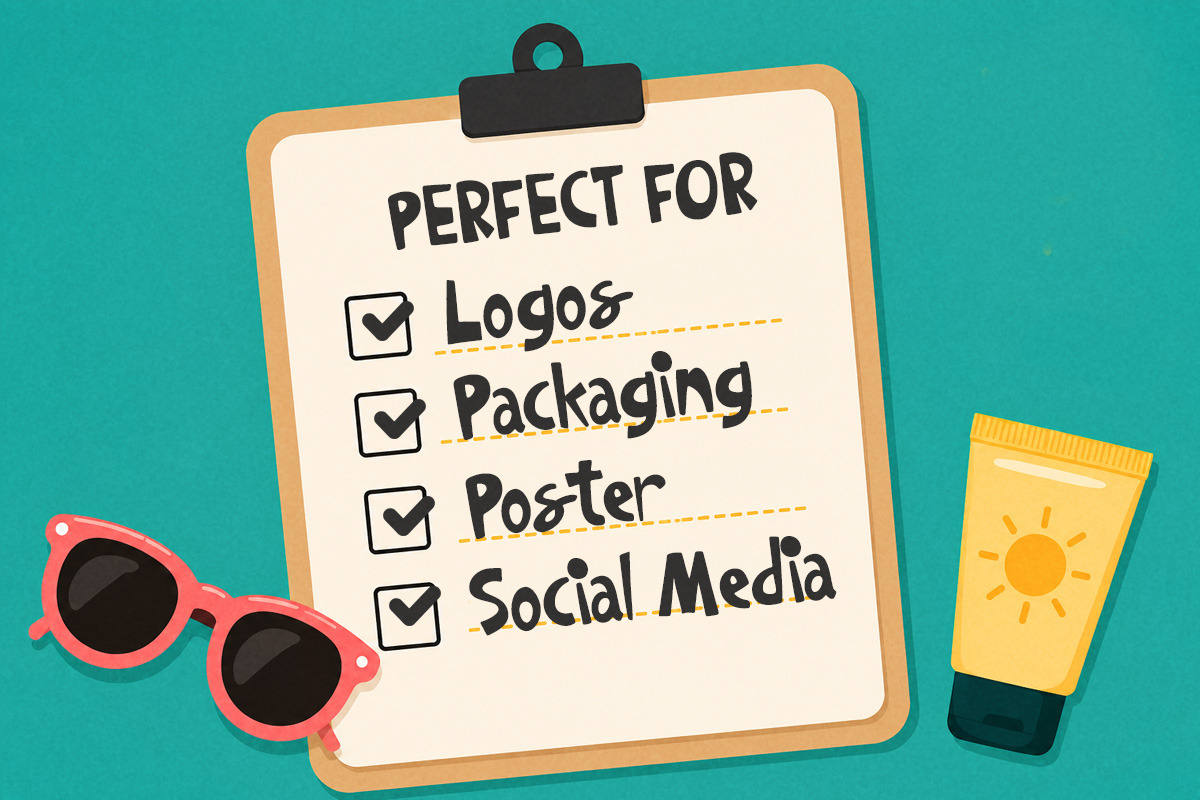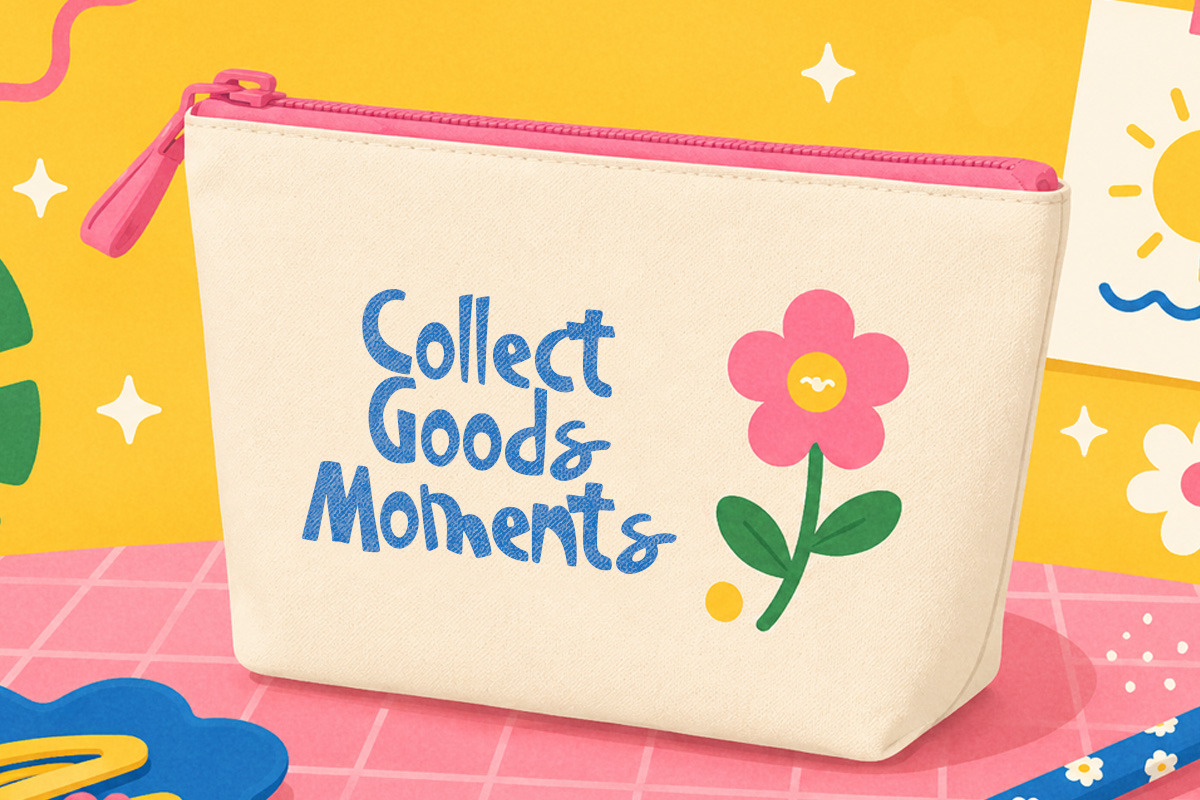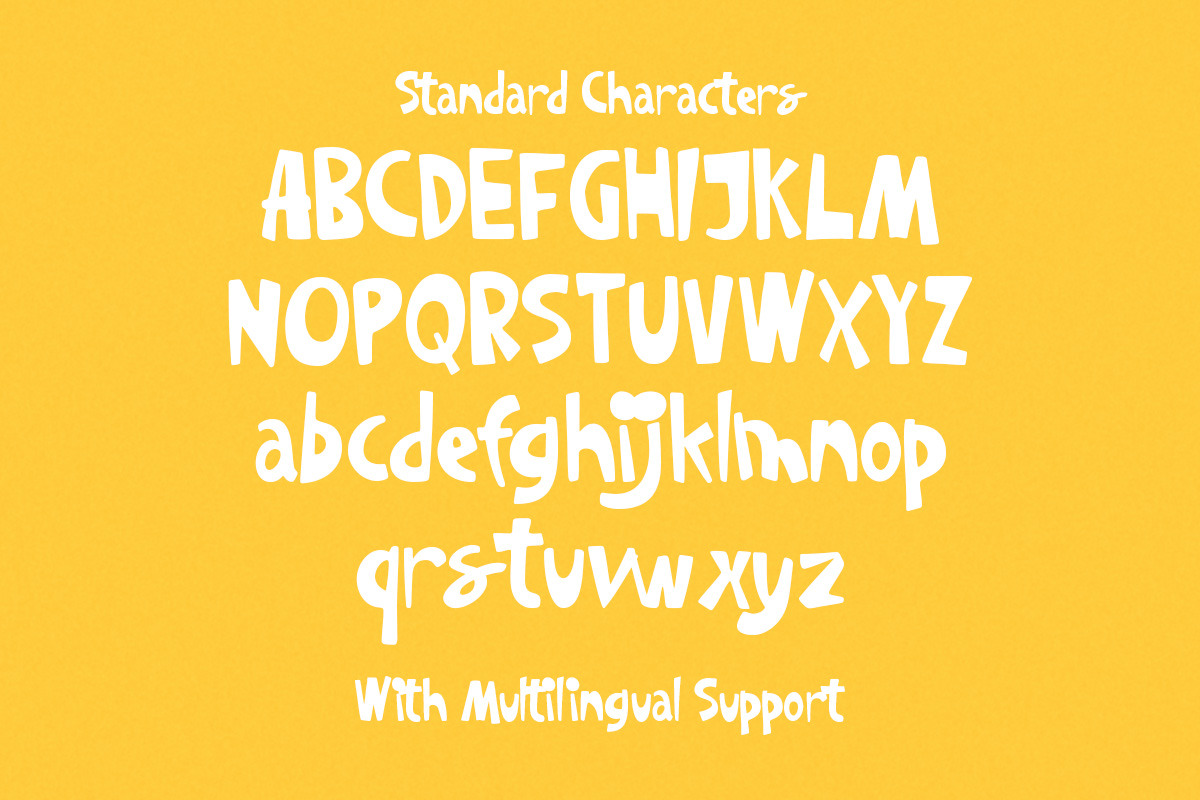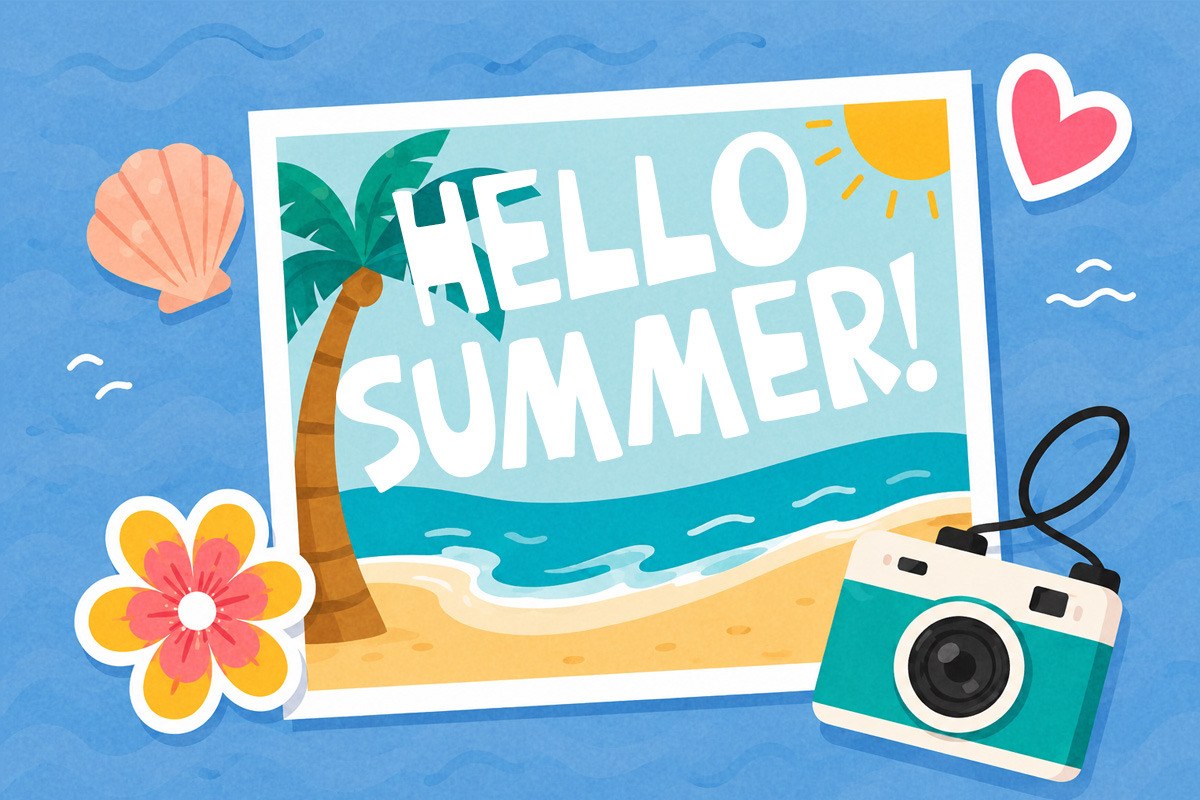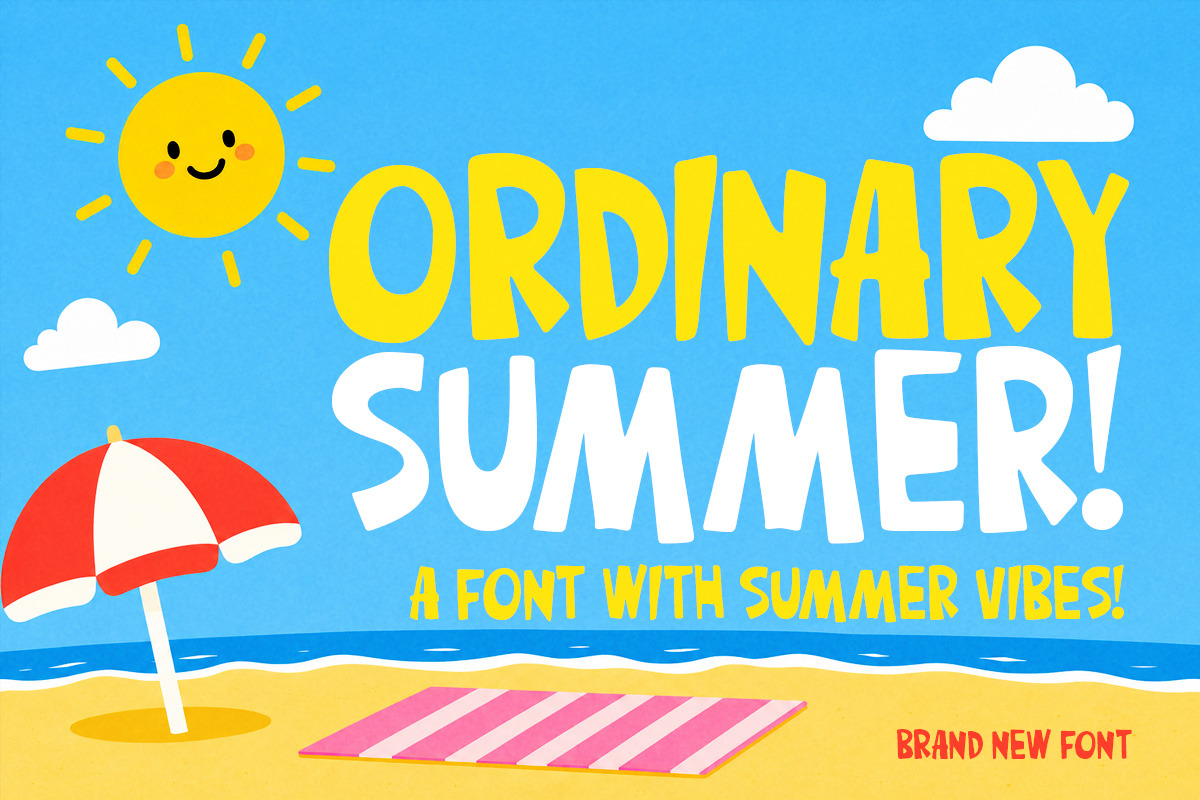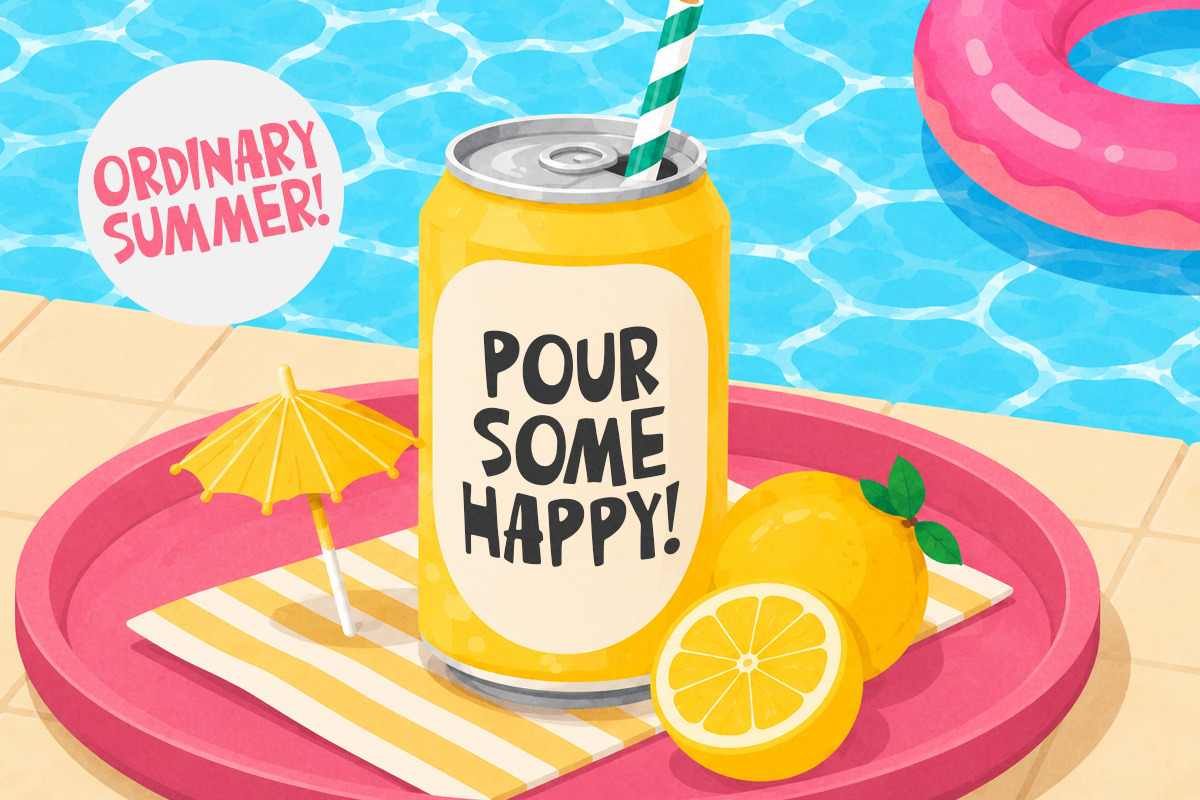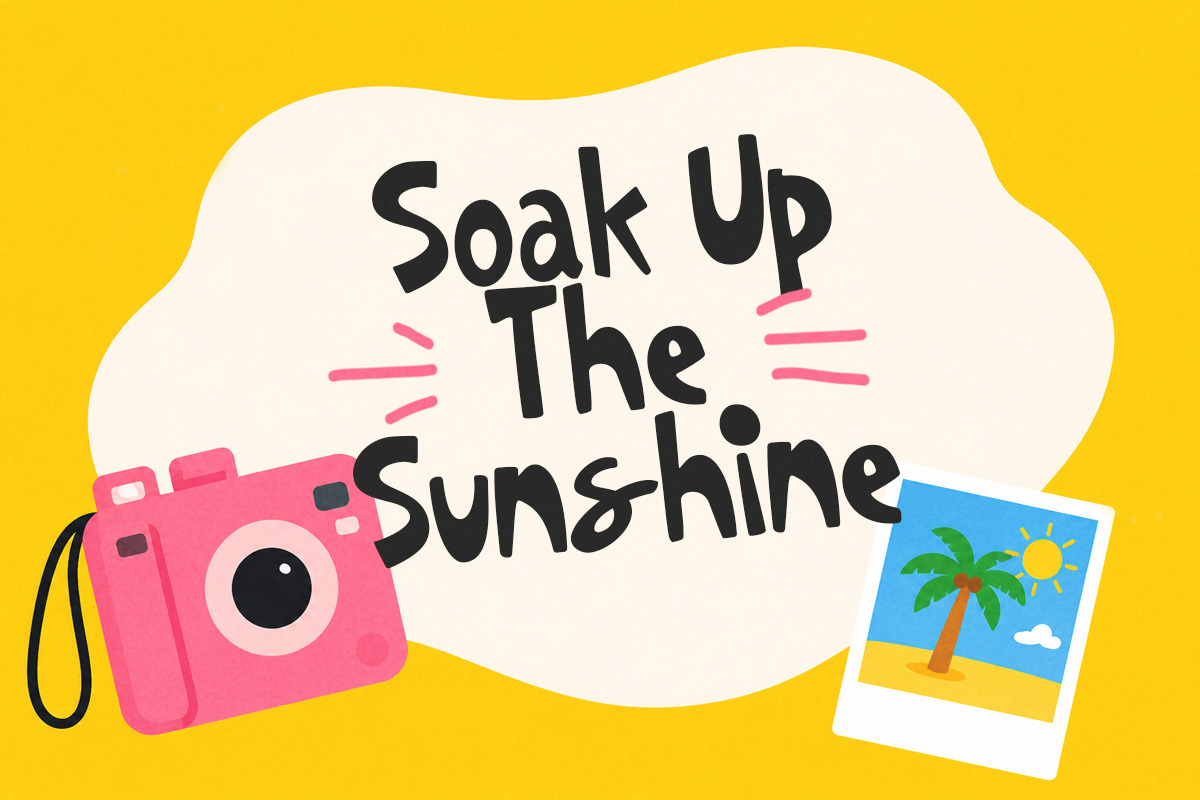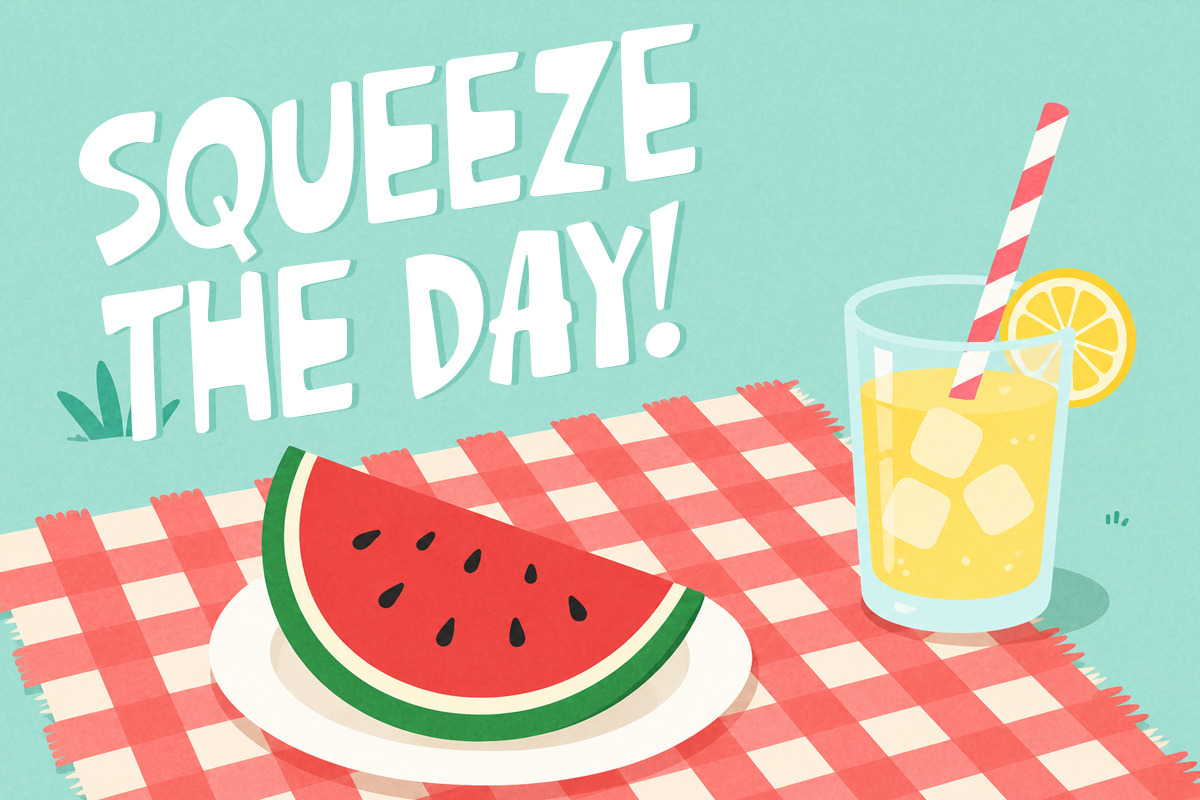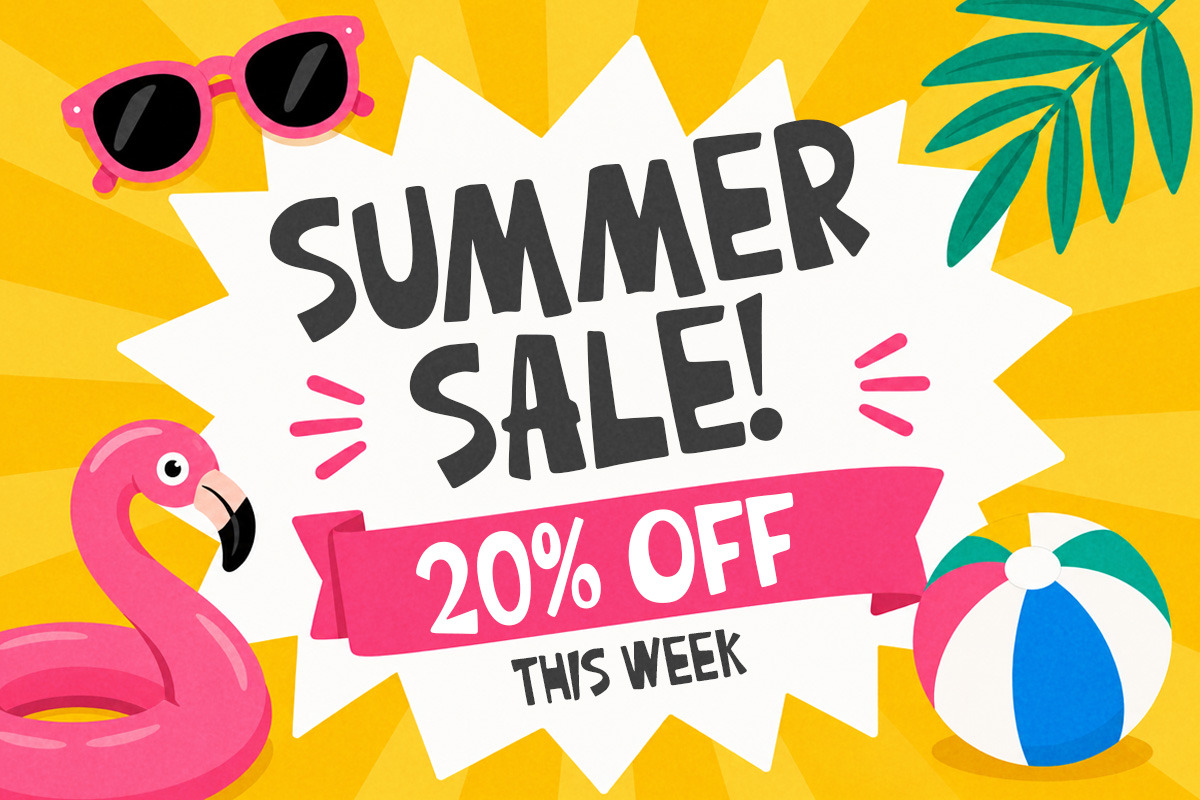
Ordinary Summer Playful Display Font
**Ordinary Summer **captures the carefree feeling of long beach days, melting ice pops, and sunshine that seems to last forever. Its playful hand-drawn letterforms bounce with youthful energy, featuring quirky shapes and an easygoing rhythm that feels spontaneous and full of personality.